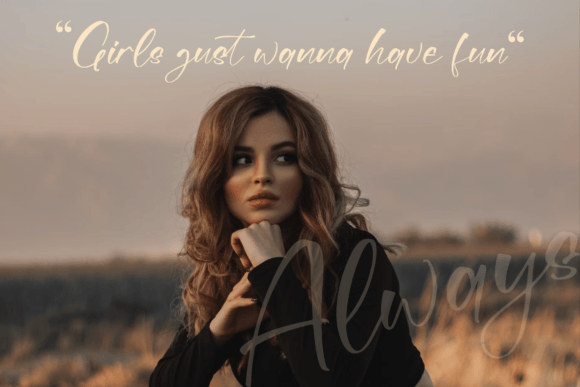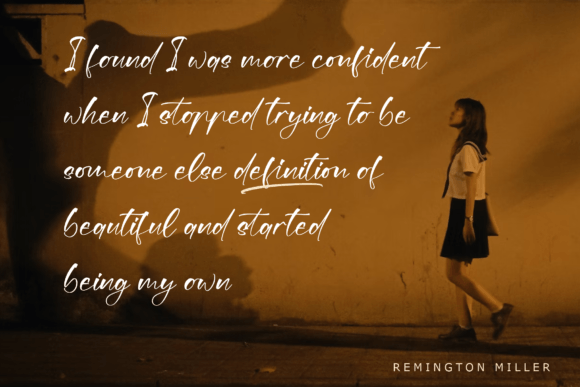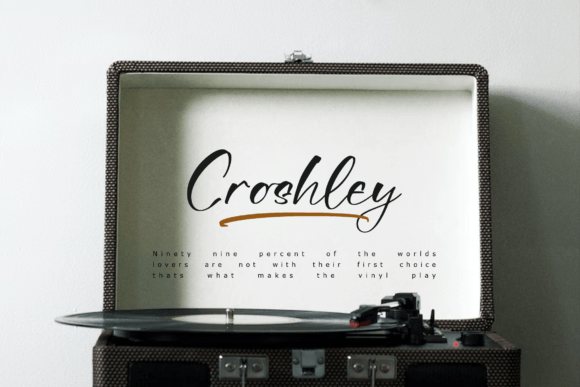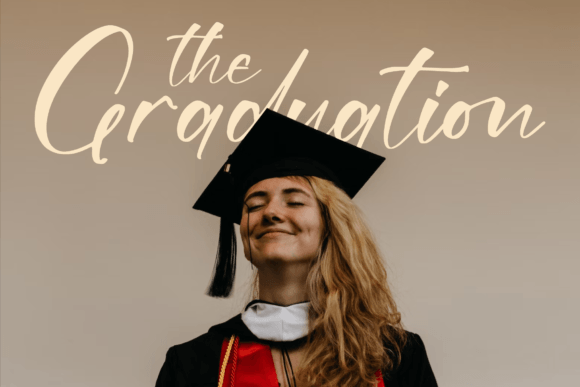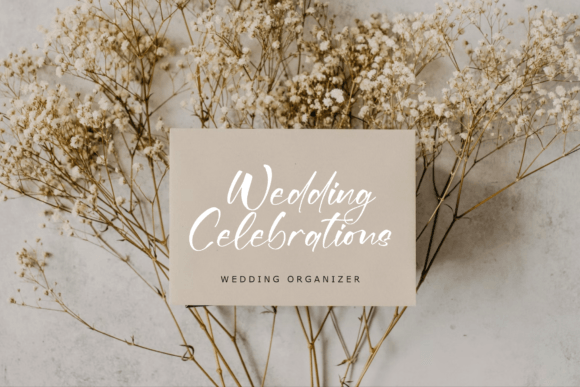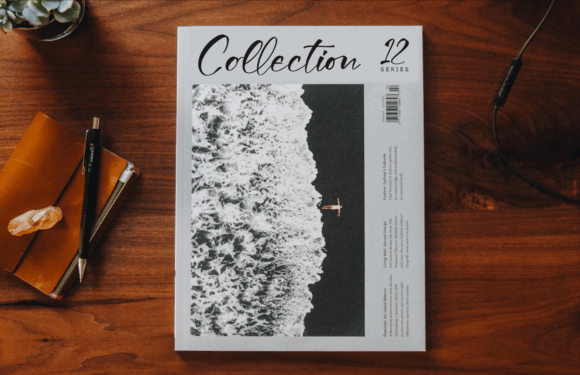
Introducing Fronttisha Font: The Elegant Script Font for Your Creative Projects
Are you a designer or crafter looking for a beautiful script font to elevate your projects? Look no further than Fronttisha Font, the elegant script font from Letterfabric Studio. This stunning font is perfect for a wide range of projects, from logos and branding to homeware designs, product packaging, and more.
What is Fronttisha Font?
Fronttisha Font is a carefully crafted script font that exudes elegance and sophistication. With its flowing lines and beautiful letterforms, this font is sure to add a touch of class to any project. Whether you’re working on a logo, a poster, or a product label, Fronttisha Font is the perfect choice.
Features of Fronttisha Font
So, what makes Fronttisha Font so special? Here are just a few of its key features:
- Elegant script style: Fronttisha Font features a beautiful script style that’s perfect for projects that require a touch of sophistication.
- High-quality design: The font has been carefully designed to ensure that it looks great in any context, from large headings to small body text.
- Versatile: Fronttisha Font can be used for a wide range of projects, from logos and branding to homeware designs, product packaging, and more.
- Easy to read: Despite its elegant style, Fronttisha Font is still easy to read, making it perfect for projects that require a clear and concise message.
Uses for Fronttisha Font
So, what can you use Fronttisha Font for? The possibilities are endless! Here are just a few ideas to get you started:
- Logos and branding: Use Fronttisha Font to create a beautiful and memorable logo for your business or brand.
- Homeware designs: Add a touch of elegance to your homeware designs, such as stationery, wall art, and more.
- Product packaging: Use Fronttisha Font to create eye-catching product packaging that stands out on store shelves.
- Mugs and quotes: Add a touch of inspiration to your mugs and quotes with Fronttisha Font.
- Posters and shopping bags: Use Fronttisha Font to create stunning posters and shopping bags that grab attention.
- T-shirts and book covers: Add a touch of elegance to your t-shirts and book covers with Fronttisha Font.
- Name cards and invitation cards: Use Fronttisha Font to create beautiful name cards and invitation cards for special events.
- Greeting cards and labels: Add a touch of elegance to your greeting cards and labels with Fronttisha Font.
- Photography and watermark: Use Fronttisha Font to add a touch of sophistication to your photography and watermark.
Why Choose Fronttisha Font?
So, why should you choose Fronttisha Font for your projects? Here are just a few reasons:
- Unique and elegant style: Fronttisha Font features a unique and elegant style that’s sure to set your projects apart.
- High-quality design: The font has been carefully designed to ensure that it looks great in any context.
- Versatile: Fronttisha Font can be used for a wide range of projects, making it a great addition to any designer’s toolkit.
In conclusion, Fronttisha Font is a beautiful and elegant script font that’s perfect for a wide range of projects. With its unique and elegant style, high-quality design, and versatility, it’s a great addition to any designer’s toolkit. Whether you’re working on a logo, a poster, or a product label, Fronttisha Font is the perfect choice. So why wait? Download Fronttisha Font today and start creating stunning projects that showcase your creativity and style!